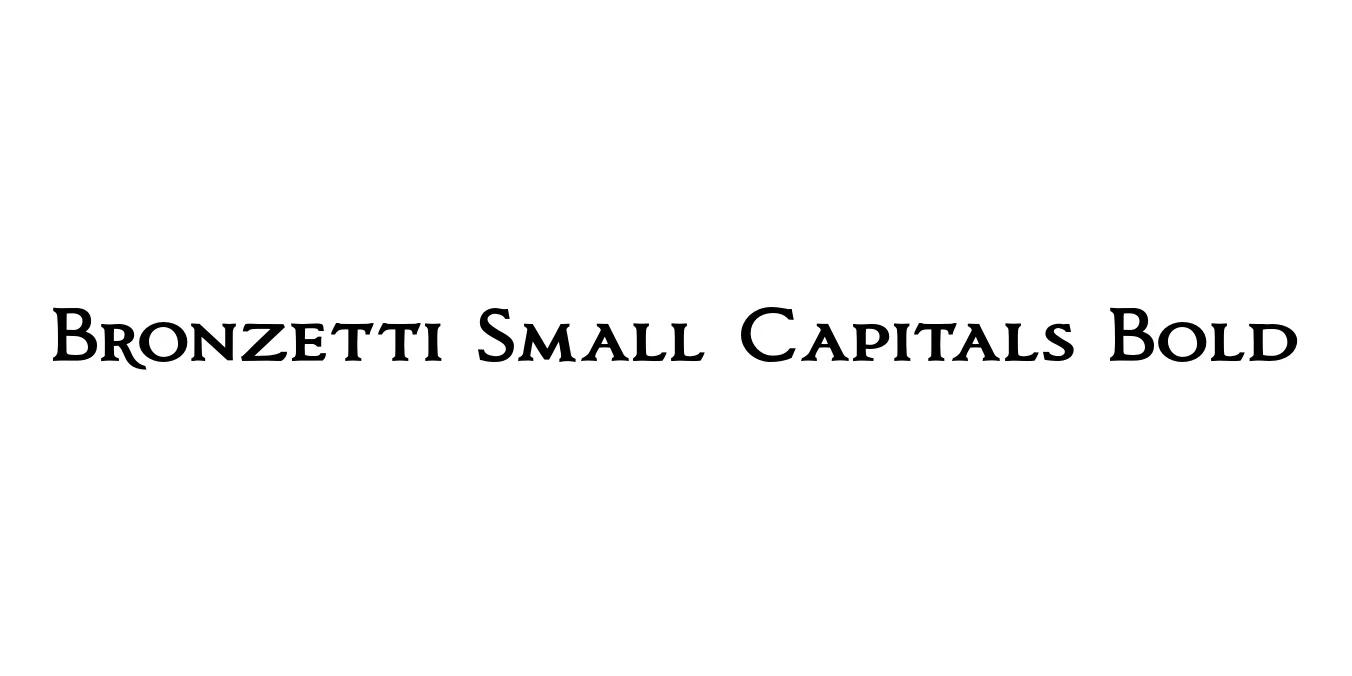
Bronzetti Small Capitals Bold
Designed by Franko Luin
Bronzetti Small Capitals Bold was designed by the renowned typographer Franko Luin in 1997. Drawing inspiration from the transitional and neoclassical styles of the late 18th century, particularly the work of Giambattista Bodoni, Luin created a typeface that balances historical elegance with modern readability. This specific bold small caps weight is crafted to provide a strong, authoritative presence while maintaining the delicate nuances of traditional serif letterforms.
The typeface is characterized by its moderate stroke contrast and sharp, refined serifs. It is particularly effective in environments where sophistication is paramount, such as high-end publishing and luxury branding. The integration of small capitals allows designers to create professional-grade typography that adheres to classical typesetting standards, ensuring that emphasized text remains harmonious with the visual weight of the overall layout.
Bronzetti Small Capitals Bold Best Uses
Luxury logos and sophisticated corporate identities.
High-impact headlines and book cover titles.
Professional business cards and formal invitation headers.